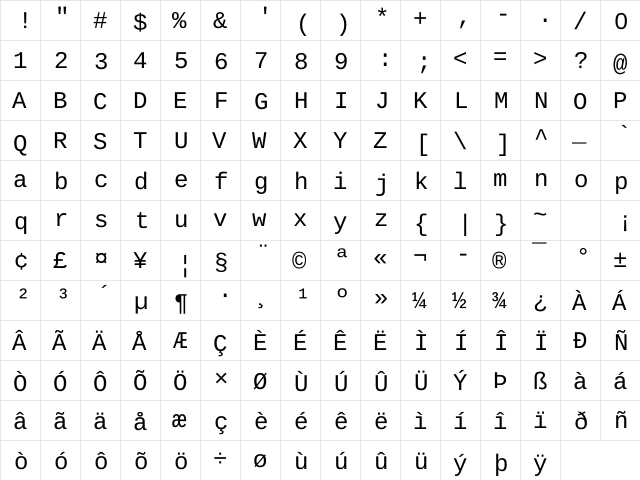
Liberation Mono Regular
| Foundry | Ascender Corporation |
| Designer | Steve Matteson |
Design Context for Liberation Mono Typeface
Liberation Mono brings the precise, column-aligned rhythm of monospaced typography to designs that value technical clarity and systematic order.
Pro Tip: Pair Liberation Mono with a proportional sans for UI contexts where code-style labels and regular body copy need to coexist.